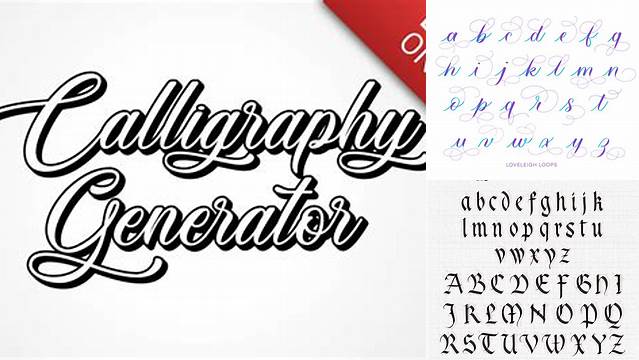
Calligraphy Fonts A-Z: Your Ultimate Generator Guide
The Art of Calligraphy Fonts: A Visual Journey
The world of typography is vast and diverse, but few styles capture the imagination quite like calligraphy fonts. These digital interpretations of elegant handwriting bring a touch of artistry and personality to any project. Whether you're designing a wedding invitation, a logo, or a personal greeting card, finding the perfect calligraphy font can elevate your design from ordinary to extraordinary. Think of them as the digital equivalent of a beautifully penned letter, each stroke carrying weight and emotion. Guys, the sheer variety out there is mind-boggling, ranging from the flowing, romantic script of traditional calligraphy to the sharp, modern lines of contemporary designs. Understanding the nuances between these styles is key to unlocking their full potential. This isn't just about aesthetics; it's about conveying a specific mood and message. A formal, ornate script might be perfect for a black-tie event, while a more playful, casual script could suit a birthday bash. The journey through the alphabet of calligraphy fonts is like exploring a treasure trove of creative expression, with each letterform offering a unique story. We're talking about fonts that don't just display text, but sing with character, imbuing your words with a sense of handcrafted beauty and refined elegance.
Exploring the Alphabet of Calligraphy Styles: From A to C
Let's kick things off by diving into the initial letters of the calligraphy alphabet, starting with 'A' for Artistic and 'B' for Bold. Artistic calligraphy fonts often embody a free-flowing, expressive style, mirroring the spontaneous strokes of a brush. They can be whimsical, dramatic, or understated, but always carry a unique artistic flair. Think of the way a painter might layer colors; artistic fonts play with thickness, curves, and flourishes to create a visual masterpiece. Then there's 'B' for Bold. These fonts are not shy; they make a statement. Often characterized by thicker strokes and a strong presence, bold calligraphy fonts demand attention. They are excellent for headlines, logos, and any design element that needs to stand out. Moving onto 'C', we find Classic and Chic. Classic calligraphy fonts often draw inspiration from historical scripts, offering a timeless elegance and sophistication. They exude a sense of tradition and formality, making them ideal for formal invitations and high-end branding. Chic, on the other hand, brings a modern, stylish edge. These fonts might incorporate subtle twists on traditional forms, offering a contemporary take on the classic art of script. They are versatile, able to add a touch of sophistication to both personal and professional projects without feeling stuffy. Guys, the beauty here is in the variety; you can find classic fonts that feel ancient and revered, or chic fonts that are right on trend, each offering a distinct vibe for your designs.
Discovering D, E, and F: Diverse, Elegant, and Flowing Scripts
Continuing our alphabetical exploration, we arrive at 'D' for Decorative and Dynamic. Decorative calligraphy fonts are all about embellishment. They often feature elaborate swirls, ligatures, and other ornamental details that add a luxurious feel. While beautiful, they need to be used judiciously to avoid overwhelming the design. Dynamic fonts, conversely, convey a sense of movement and energy. They might have slanted baselines, varying stroke widths, and energetic flourishes that make the text feel alive. Then we have 'E' for Elegant and Expressive. Elegance in calligraphy is often achieved through balanced proportions, smooth curves, and refined hairlines. These fonts speak of grace and sophistication, perfect for occasions demanding a touch of class. Expressive fonts, much like artistic ones, focus on conveying emotion and personality. They might be more informal, with quirky loops and unique character shapes that reflect a distinct individual style. Finally, we reach 'F' for Formal and Flourished. Formal calligraphy fonts are designed for settings where decorum and tradition are paramount. They are often characterized by consistent stroke thickness, upright posture, and a generally serious demeanor. Flourished fonts, as the name suggests, are abundant in flourishes – decorative extensions of strokes. These can range from subtle embellishments to grand, sweeping gestures, adding a dramatic flair that draws the eye. So, when you're scrolling through font libraries, keep an eye out for these characteristics – they're the building blocks of stunning visual communication, guys.
G, H, and I: Graceful, Handwritten, and Intricate Designs
Let's keep the calligraphy font adventure rolling with 'G', 'H', and 'I'. First up, 'G' for Graceful and Gothic. Graceful calligraphy fonts embody fluidity and poise. They feature soft, flowing lines and balanced forms that create a sense of ease and beauty. These are the fonts that whisper elegance rather than shout it. Gothic calligraphy, on the other hand, offers a distinct historical charm. While often associated with medieval manuscripts, modern interpretations can bring a striking, bold aesthetic to contemporary designs. They are characterized by sharp angles, strong vertical lines, and a condensed feel. Moving to 'H', we have Handwritten and Heavy. Handwritten fonts are perhaps the closest digital relatives to genuine penmanship. They aim to replicate the natural variations and imperfections of human handwriting, offering authenticity and a personal touch. Heavy calligraphy fonts are similar to bold, but often imply a thicker, more substantial stroke weight, giving them a solid, grounded appearance. They convey strength and permanence. Finally, 'I' brings us Intricate and Informal. Intricate calligraphy fonts are detailed and complex, often featuring fine lines, delicate swashes, and elaborate ligatures. They demand close attention and reward the viewer with their fine craftsmanship. Informal calligraphy fonts, in contrast, are relaxed and casual. They mimic everyday handwriting, perfect for friendly messages, social media posts, or designs that aim for an approachable vibe. Guys, picking the right style is all about matching the font's personality to your project's needs. Sometimes that intricate detail is just what you need, and other times, that relaxed informal vibe is the winner.
J, K, and L: Joyful, Kindred, and Luxurious Styles
As we venture further into the calligraphy font spectrum, 'J', 'K', and 'L' offer unique flavors. For 'J', consider Jubilant and Jazzy. Jubilant fonts are all about celebrating! They often feature bouncy letters, playful loops, and an energetic feel, perfect for party invitations or cheerful announcements. Jazzy fonts bring a touch of flair and personality, often incorporating unique ligatures or stylistic alternates that give them a distinctive, rhythmic quality, much like a lively jazz tune. Moving to 'K', we might think of Keen and Kindred. Keen fonts are sharp, precise, and often have a modern edge, reflecting clarity and intention in their design. Kindred fonts evoke a sense of connection and warmth. They might have a slightly imperfect, handcrafted feel that makes them seem approachable and familiar, like a letter from a close friend. Then we have 'L' for Lyrical and Luxurious. Lyrical calligraphy fonts are characterized by their smooth, flowing lines and musical rhythm. They possess a poetic quality, making them ideal for romantic themes or artistic endeavors. Luxurious fonts, on the other hand, are all about opulence and refinement. They often feature rich detailing, elegant curves, and a sense of grandeur, perfect for high-end branding, wedding invitations, or anything that requires a premium feel. These fonts are designed to impress, guys, with every curve and swash exuding sophistication and exclusivity.
M, N, and O: Modern, Neat, and Ornate Calligraphy
Let's continue our alphabetical dive into the world of calligraphy fonts with 'M', 'N', and 'O'. For 'M', we often see Modern and Majestic. Modern calligraphy fonts are a contemporary take on traditional scripts, often featuring clean lines, minimalist flourishes, and a fresh aesthetic. They bridge the gap between classic elegance and current design trends, making them incredibly versatile. Majestic fonts, as their name suggests, evoke a sense of grandeur and regality. They are often characterized by their imposing presence, elaborate details, and a sophisticated aura, suitable for projects aiming for a powerful and impressive impact. Moving to 'N', we can consider Neat and Noble. Neat calligraphy fonts are characterized by their clean, uncluttered forms and precise execution. They ensure readability and a polished look, ideal for professional contexts where clarity is key. Noble fonts convey a sense of dignity, integrity, and timeless quality. They might have a more restrained elegance, exuding a quiet confidence and sophistication. Finally, 'O' brings us Ornate and Organic. Ornate calligraphy fonts are rich in decoration, featuring intricate details, swashes, and flourishes that add a layer of complexity and visual interest. They are designed to be eye-catching and luxurious. Organic calligraphy fonts, in contrast, embrace natural, free-flowing forms. They might mimic the gentle curves of nature or the effortless flow of water, offering a softer, more approachable aesthetic. Guys, the contrast between ornate and organic really highlights the incredible range available, from the meticulously detailed to the beautifully unconstrained.
P, Q, and R: Playful, Quaint, and Romantic Scripts
Continuing our journey through the calligraphy alphabet, let's explore 'P', 'Q', and 'R'. For 'P', we have Playful and Pristine. Playful calligraphy fonts are designed to evoke fun and lightheartedness. They often feature bouncy letters, whimsical shapes, and a generally informal feel, perfect for children's parties, creative projects, or designs that need a touch of joy. Pristine fonts, on the other hand, are characterized by their immaculate execution and clean, sharp lines. They convey a sense of purity, clarity, and perfection, often used in high-end branding or minimalist designs where every detail matters. Moving to 'Q', we might think of Quaint and Quirky. Quaint calligraphy fonts have a charming, old-fashioned quality. They often evoke a sense of nostalgia or rustic simplicity, adding a unique character to designs. Quirky fonts are distinctive and unconventional, featuring unusual letterforms, unexpected flourishes, or a general sense of playful eccentricity. They are perfect for projects that aim to stand out and express individuality. Finally, 'R' brings us Romantic and Regal. Romantic calligraphy fonts are all about emotion and tenderness. They typically feature soft, flowing strokes, elegant curves, and a graceful aesthetic, ideal for wedding invitations, love letters, or any project celebrating love and affection. Regal fonts convey a sense of authority, luxury, and nobility. They often have a more formal structure, rich detailing, and a commanding presence, making them suitable for projects aiming for a sophisticated and prestigious feel. Guys, whether you're aiming for charmingly old-fashioned or passionately heartfelt, these letters cover a lot of ground.
S, T, and U: Sophisticated, Traditional, and Unique Fonts
Let's keep the momentum going with 'S', 'T', and 'U' in our calligraphy font exploration. First, 'S' for Sophisticated and Script. Sophisticated calligraphy fonts exude elegance, refinement, and a sense of worldly charm. They are meticulously crafted with balanced proportions and graceful execution, making them suitable for high-end projects and formal occasions. Script fonts, in a broader sense, refer to any font that mimics handwriting, and calligraphy is a highly stylized form of script. Within this category, you'll find a spectrum from casual to ultra-formal. Then we move to 'T', which brings us Traditional and Textured. Traditional calligraphy fonts are rooted in historical styles, offering a classic and time-tested aesthetic. They often possess a formal structure and a sense of established beauty, perfect for conveying authenticity and heritage. Textured calligraphy fonts incorporate elements that suggest a tactile quality, perhaps mimicking the look of ink on rough paper or the subtle imperfections of a hand-drawn line. They add depth and character to designs. Finally, 'U' for Unique and Unconventional. Unique calligraphy fonts stand out from the crowd due to their distinctive characteristics. They might feature unusual letterforms, innovative ligatures, or a style that defies easy categorization, making them perfect for projects that demand originality. Unconventional fonts break the mold, offering a fresh and often surprising take on calligraphy, pushing creative boundaries and adding an element of intrigue to your designs. Guys, the goal is always to find that font that perfectly captures the essence of your message, and these categories provide a great starting point.
V, W, X, Y, and Z: Versatile, Whimsical, and Zesty Options
We've almost reached the end of our calligraphy font alphabet journey! Let's tackle 'V', 'W', 'X', 'Y', and 'Z'. For 'V', we have Versatile and Vibrant. Versatile calligraphy fonts can adapt to a wide range of applications, from formal invitations to casual social media posts, offering a good balance of style and readability. Vibrant fonts are full of life and energy, often characterized by bold strokes, dynamic movement, and a lively feel, making them ideal for projects that need to pop. Moving to 'W', consider Whimsical and Whimsical. Whimsical calligraphy fonts are playful, imaginative, and often enchanting. They might feature charming irregularities, lighthearted flourishes, and a dreamy quality, perfect for fairytale themes or creative storytelling. Moving on, 'X' often represents the edge or the unknown in typography, but in calligraphy, we can think of eXtra flourishes or eXpressive styles. Fonts with extra flourishes are those that go above and beyond in ornamentation, adding dramatic flair. Fonts emphasizing expressiveness highlight the unique personality of the hand behind the script. For 'Y', we can consider Youthful and Yummy. Youthful fonts often have a clean, modern feel with a touch of playful energy, appealing to a younger demographic or projects focused on new beginnings. Yummy fonts have a delightful, appealing quality, perhaps with soft curves and a friendly demeanor, making them feel inviting and pleasant to look at. Finally, 'Z' for Zesty and Zealous. Zesty fonts are lively, energetic, and full of character, adding a spark to any design. Zealous fonts convey enthusiasm and passion, often with bold strokes and a determined feel, suitable for projects that aim to inspire and motivate. Guys, this final stretch covers fonts that bring energy, charm, and a distinctive flair to your typographic toolkit.
Wrapping Up: Your Calligraphy Font Journey Starts Now!
So there you have it, guys! We've explored the vast universe of calligraphy fonts, from artistic and bold to zesty and zealous. We've delved into how calligraphy font generators are indispensable tools for previewing, selecting, and experimenting with these beautiful styles. Whether you're crafting wedding invitations, designing a brand identity, or creating eye-catching social media graphics, the right calligraphy font can make all the difference. Remember to consider legibility, licensing, and pairing options to ensure your designs are both beautiful and effective. The journey from A to Z is just the beginning. Now it's your turn to dive in, play with the generators, and discover the perfect script to bring your creative vision to life. Happy designing!